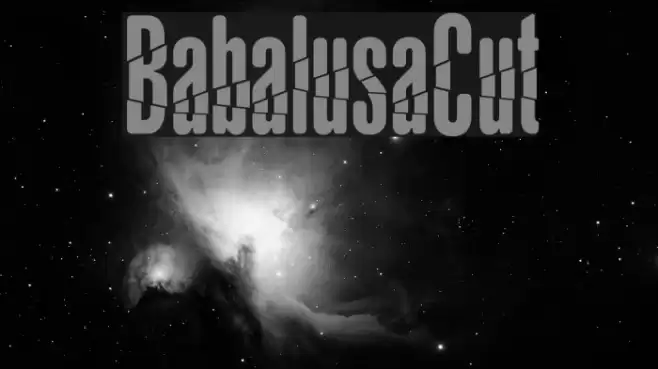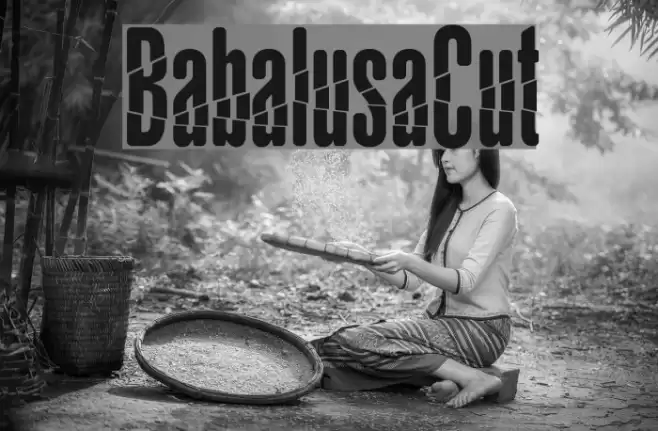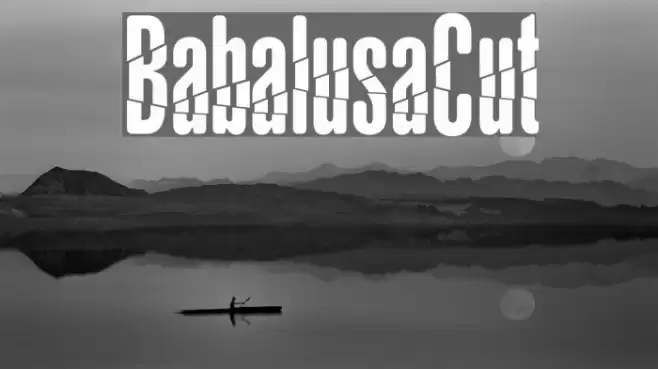
BabalusaCut Font
BabalusaCut Description
This font features a bold, striking design with a unique cut-through effect that gives each character a dynamic and edgy appearance. The uppercase and lowercase letters are consistently styled, maintaining a strong visual impact. The numbers and special characters follow the same design principle, ensuring a cohesive look across all elements. The font's boldness and distinctive style make it ideal for attention-grabbing headlines and creative projects. Its modern and decorative nature adds a contemporary flair to any design.
A bold, modern font with a unique cut-through effect, perfect for striking headlines from Distorted Eroded fonts.
- Proposed Projects: Ideal for branding, posters, album covers, and any project requiring a bold, modern aesthetic.
- Overall Style: Modern, Decorative